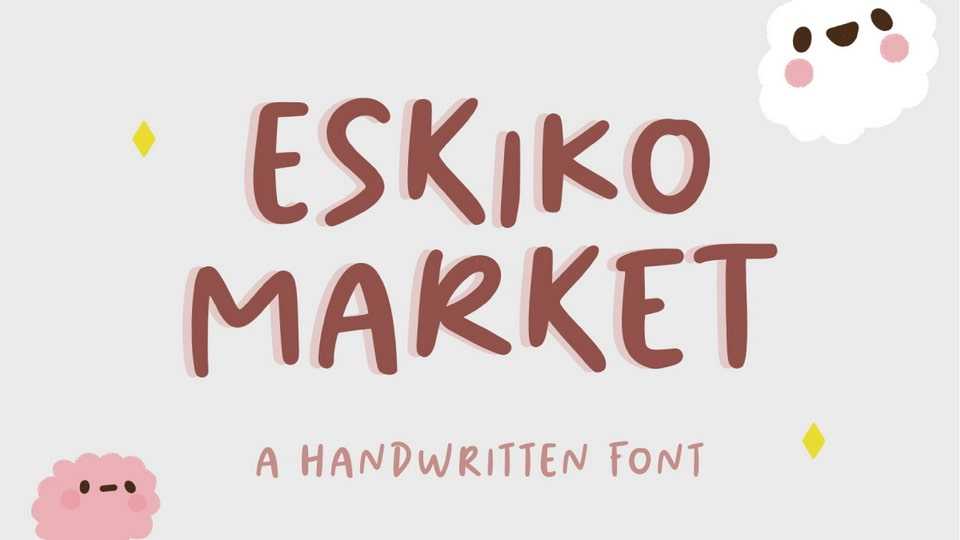
Download Eskiko Market font, a funny handwritten typeface. Eskiko Market font is perfect for making beautiful quotes or posts for Pinterest or Instagram and decorating them with cute graphics.